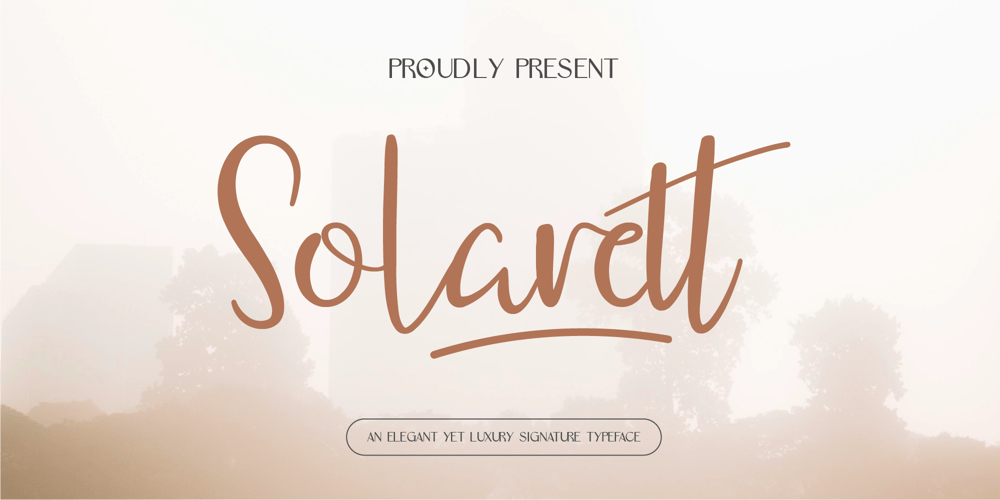
Solarett Font Family was designed by Gilang Mei Nugraha, Frederik Aristaputra and published by Creatifont Studio. Solarett contains 2 styles and family package options. Solarett is an exquisite signature font that exudes elegance and luxury. Its flowing script and stylish strokes create a sense of effortless beauty. With its natural appearance and graceful curves, Solarett is ideal for adding a touch of sophistication to wedding invitations, branding materials, and other special projects.A SUMMARY OF WHAT’S INCLUDED: Standard Character A-Z, a-z, 0-9, Punctuation & symbols Regular and Italic Multilingual Support Works on PC & Mac Simple installation Accessible in Adobe Creative Suite (Ai, Ps, Id, etc.) even work on Microsoft Word. PUA Encoded Characters – Fully accessible without additional design software. 🌟If you come across any issues or notice anything we might have overlooked while using this product, please feel free to reach out to us. We greatly value your feedback as it helps us enhance and refine our products. Thank you!